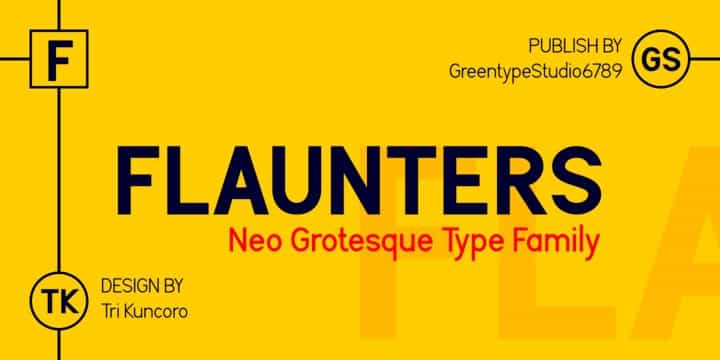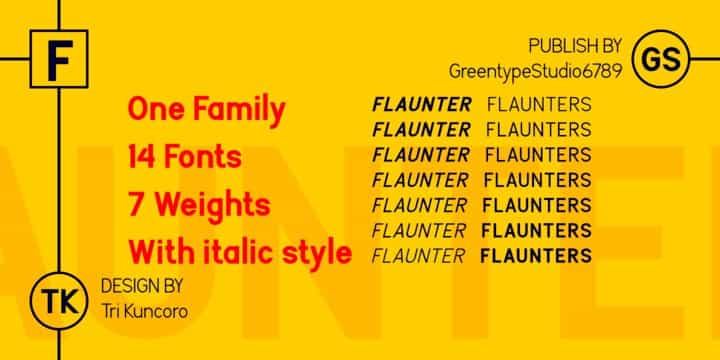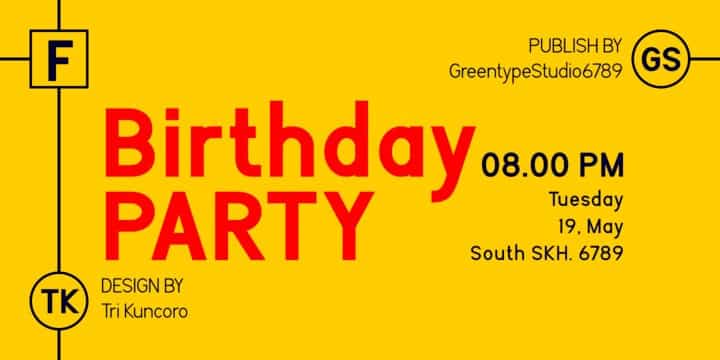
Flaunters is a elegant font suitable for newspaper and magazine designs. It is a sans-serif font, carefully crafted to introduce smooth sophistication into your projects. Flaunters Sans is developed and/or published by the following: Greentypestudio6789. It is a sans serif neo-grotesque typeface with very lovely and elegant letters.